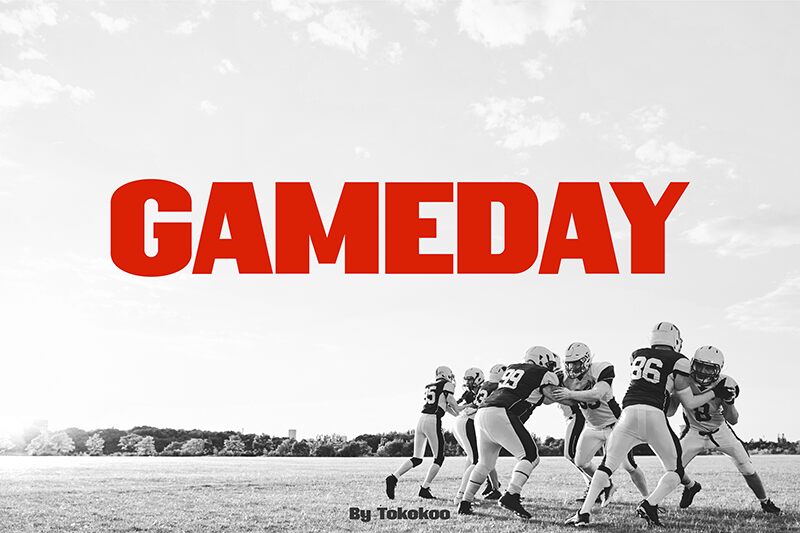
GAMEDAY
Gameday font by Tokokoo Studio stands out with its unique display style. A bold sans serif display font that is all set to make a statement with its geometric shapes, square corners, and strong presence. It works well on a variety of background colors, including both light and dark backgrounds as well as patterned ones, so you can use it for any kind of design that would benefit from the attention it draws.